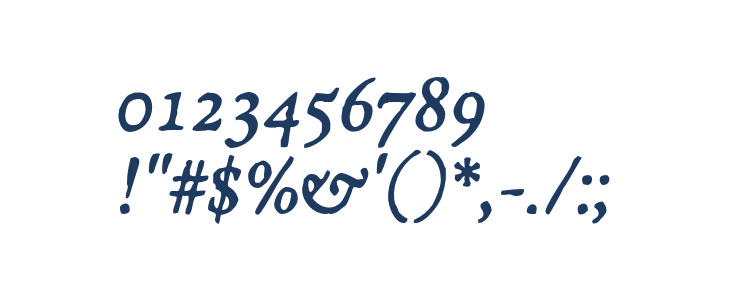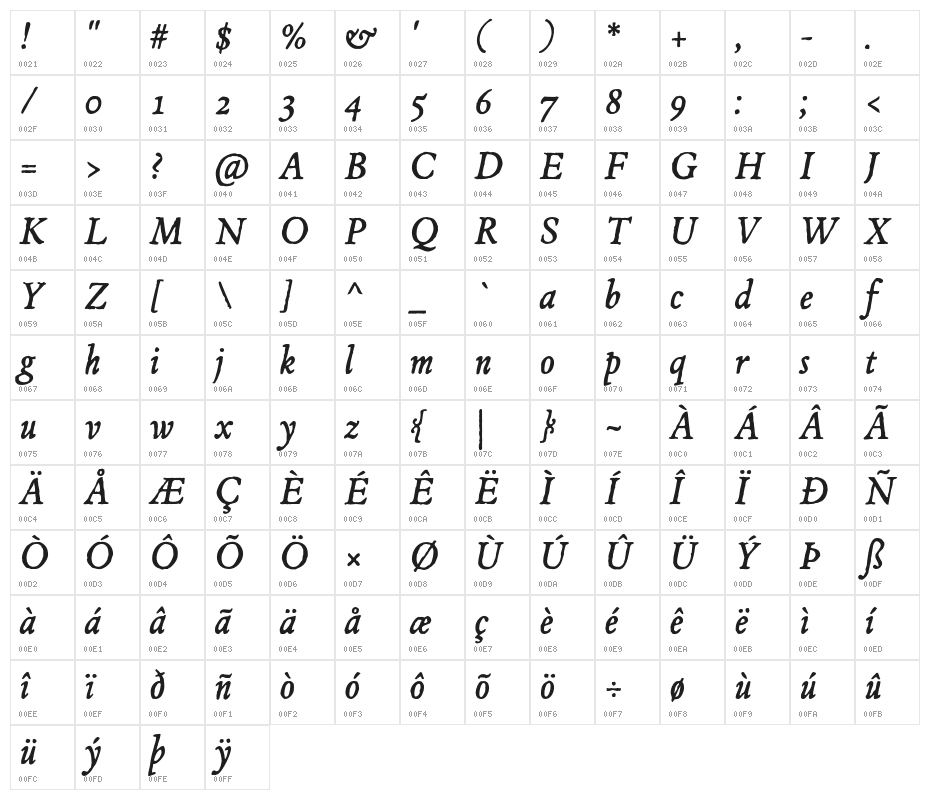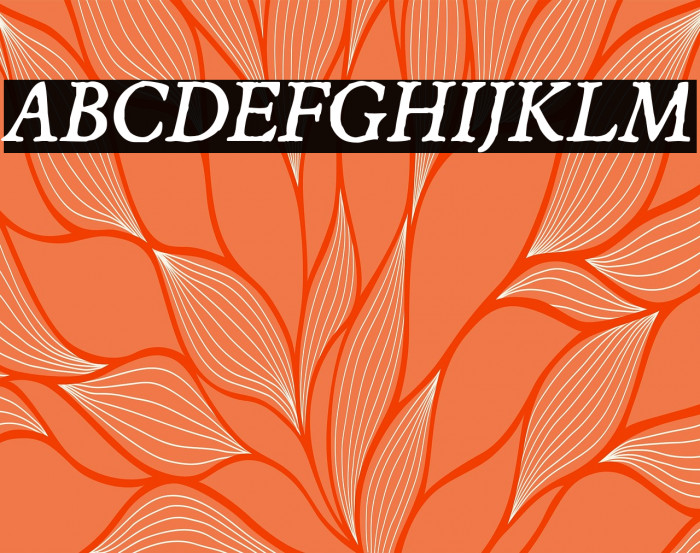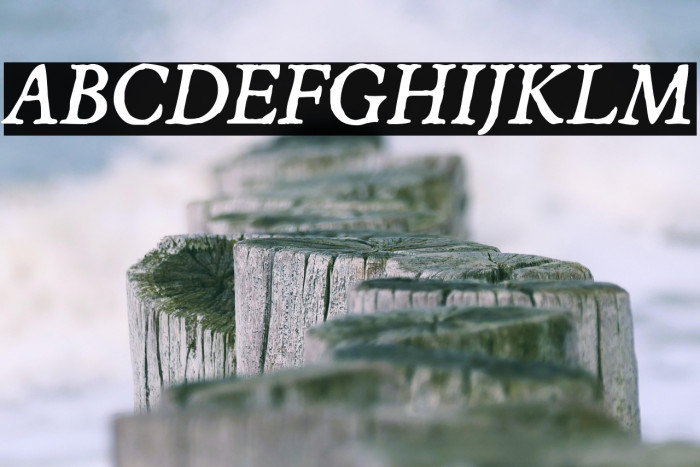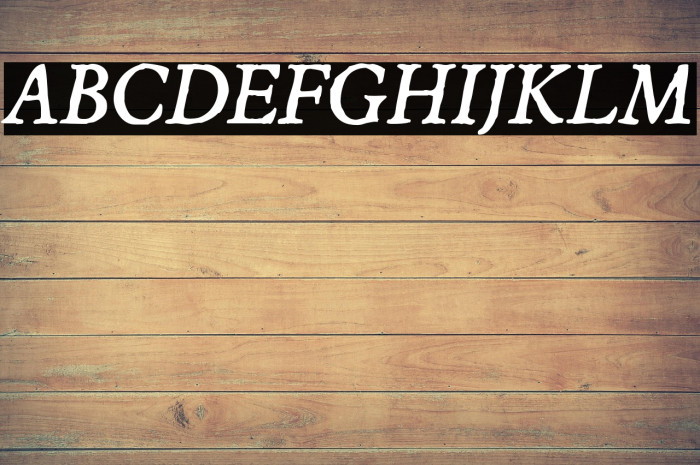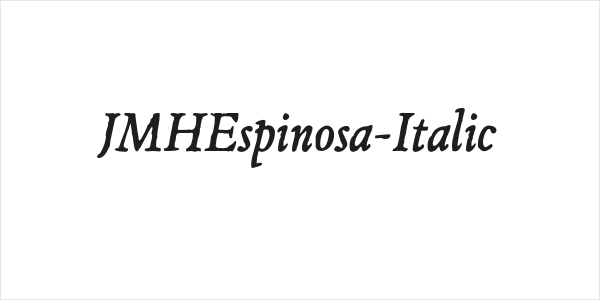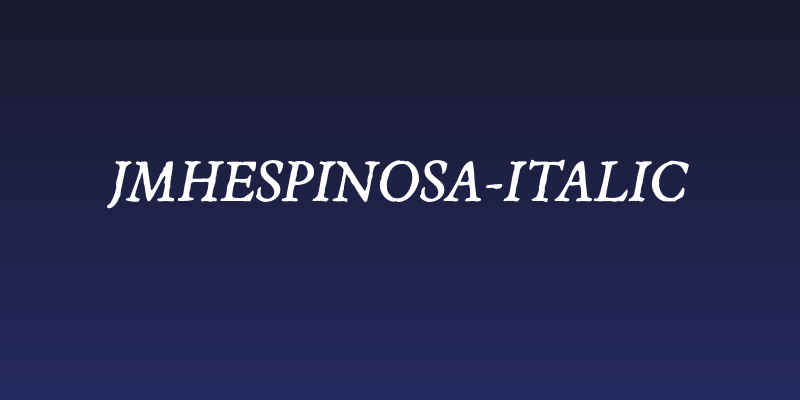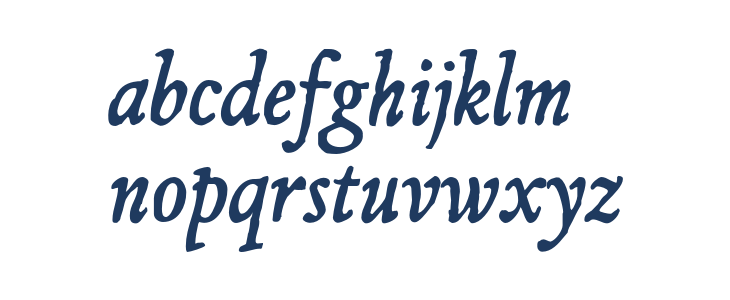
JMHEspinosa-Italic Font
JMHEspinosa-Italic Description
This font features a dynamic and expressive italic style, characterized by its flowing and cursive letterforms. The uppercase letters exhibit a slight slant, enhancing the elegant and sophisticated appearance. The lowercase letters maintain a consistent slant, with smooth curves and a handwritten feel. The numerals are bold and slightly condensed, ensuring readability while maintaining the overall aesthetic. Special characters are uniquely styled, adding a touch of creativity and flair. The font's design is well-suited for projects that require a personal and artistic touch.